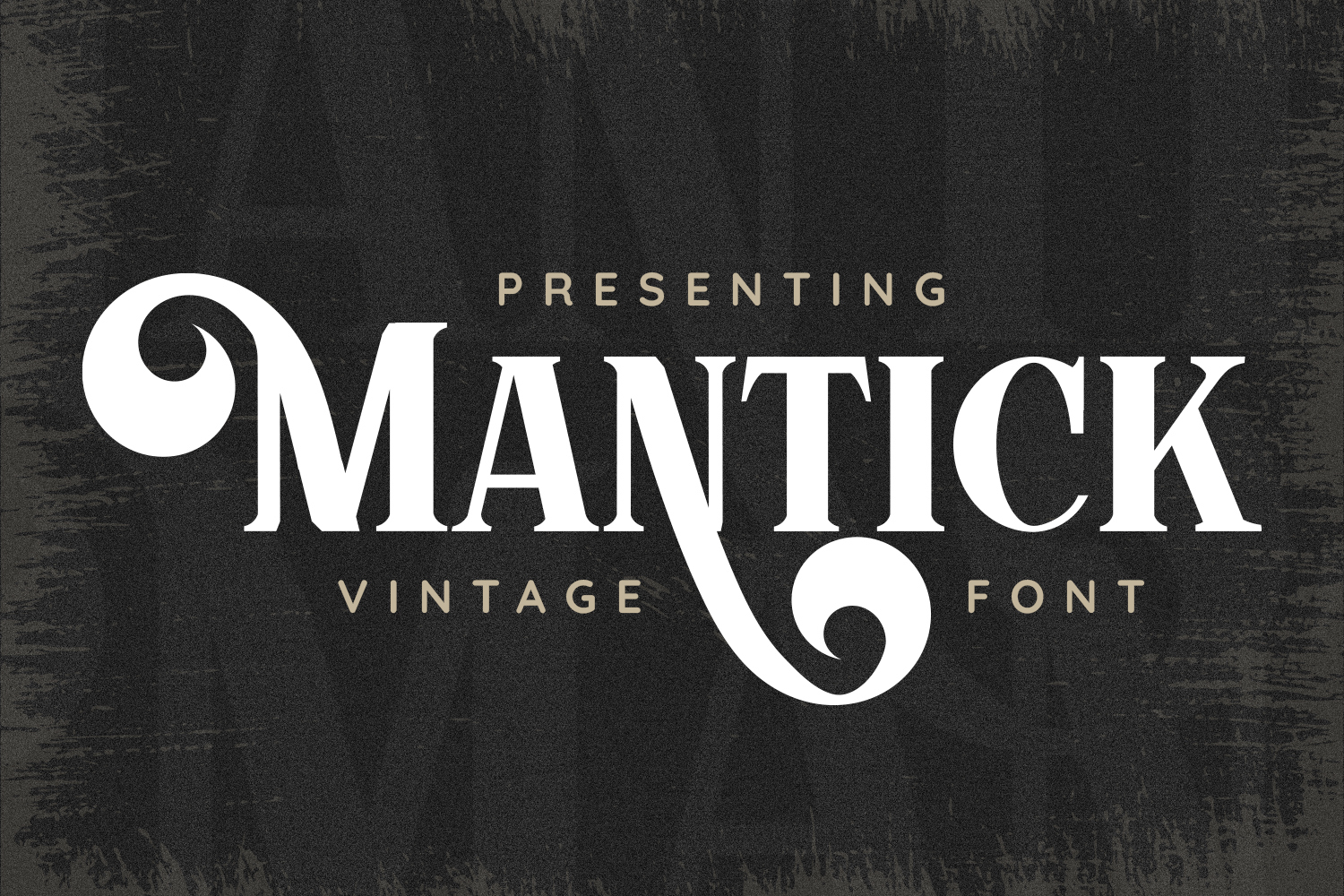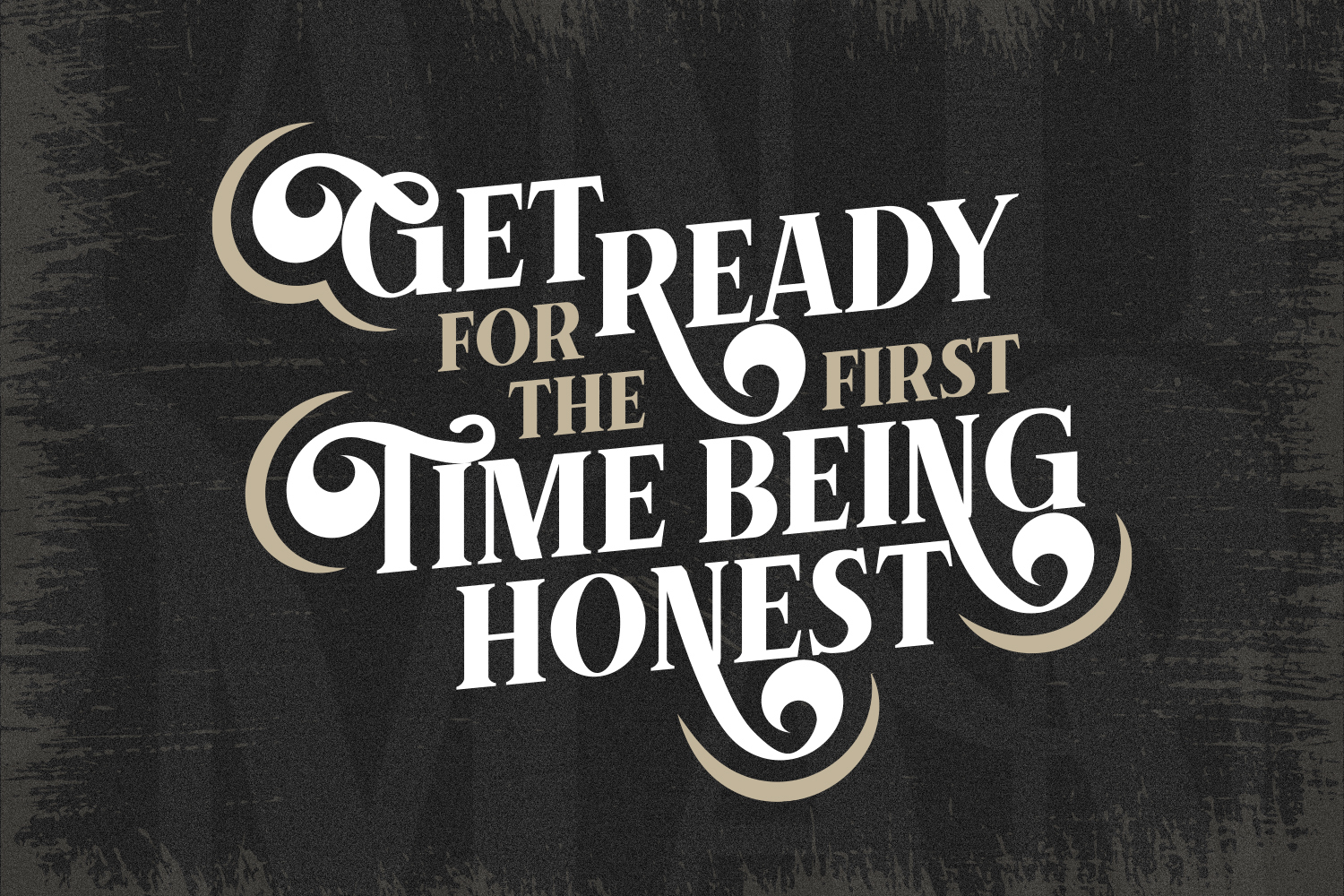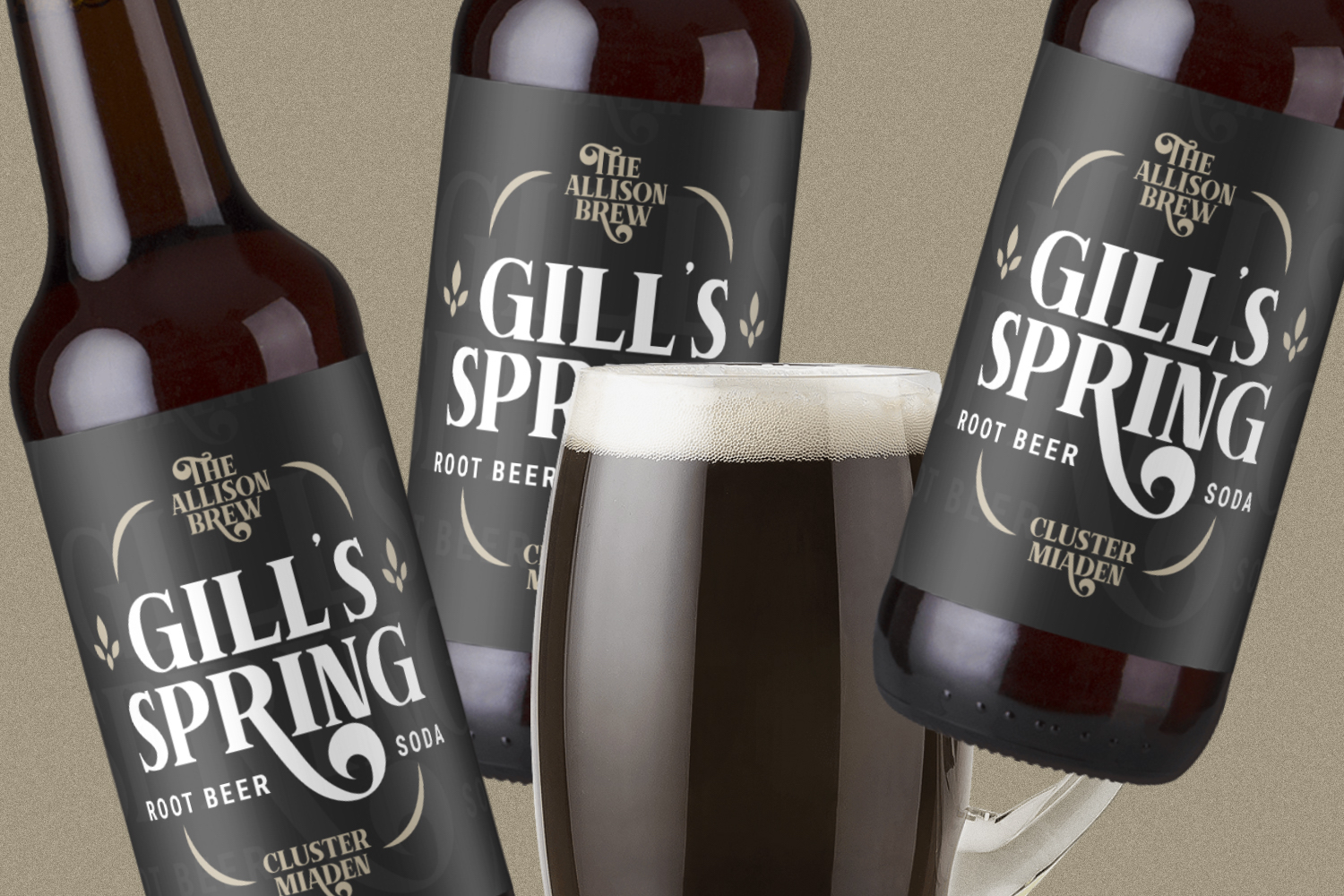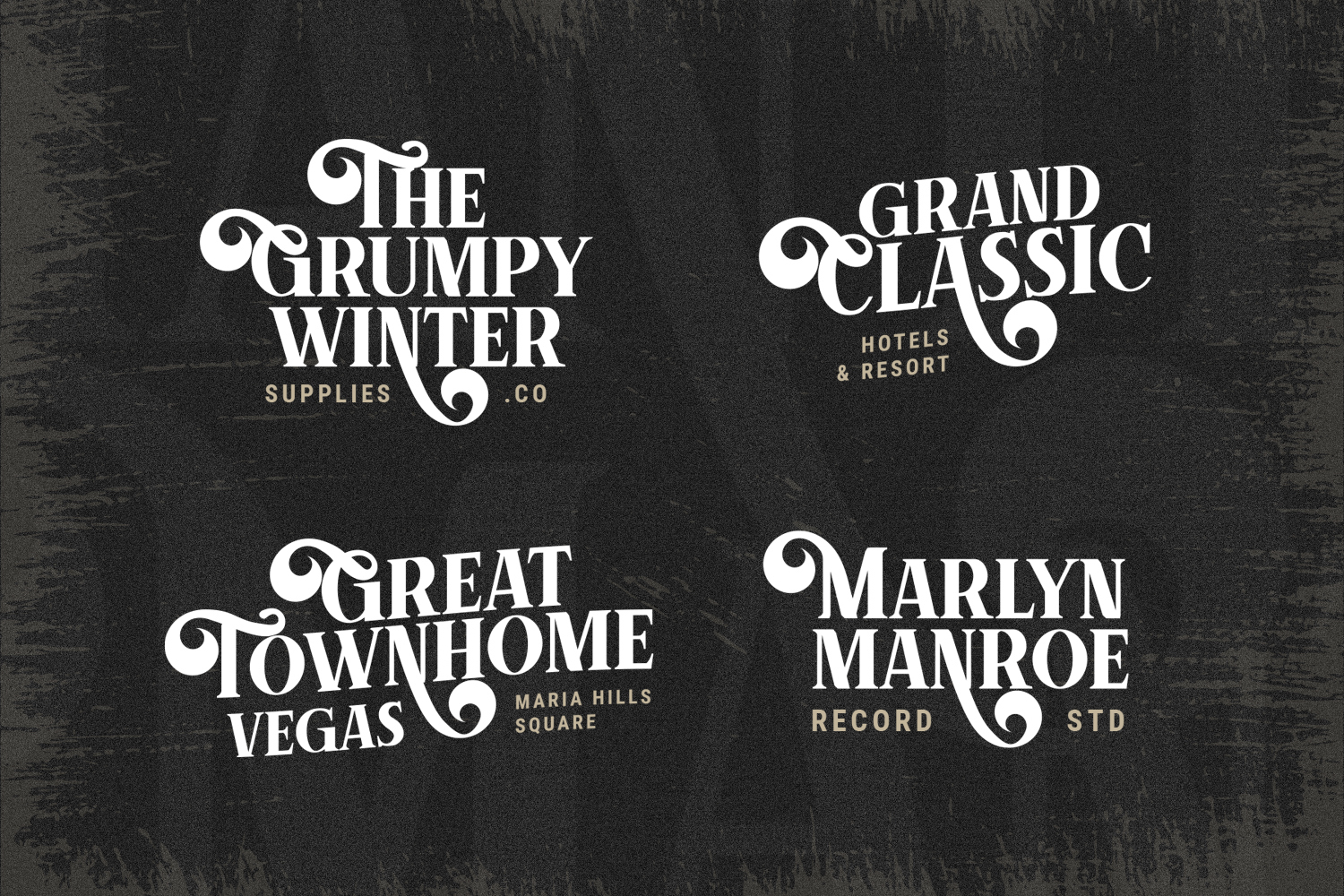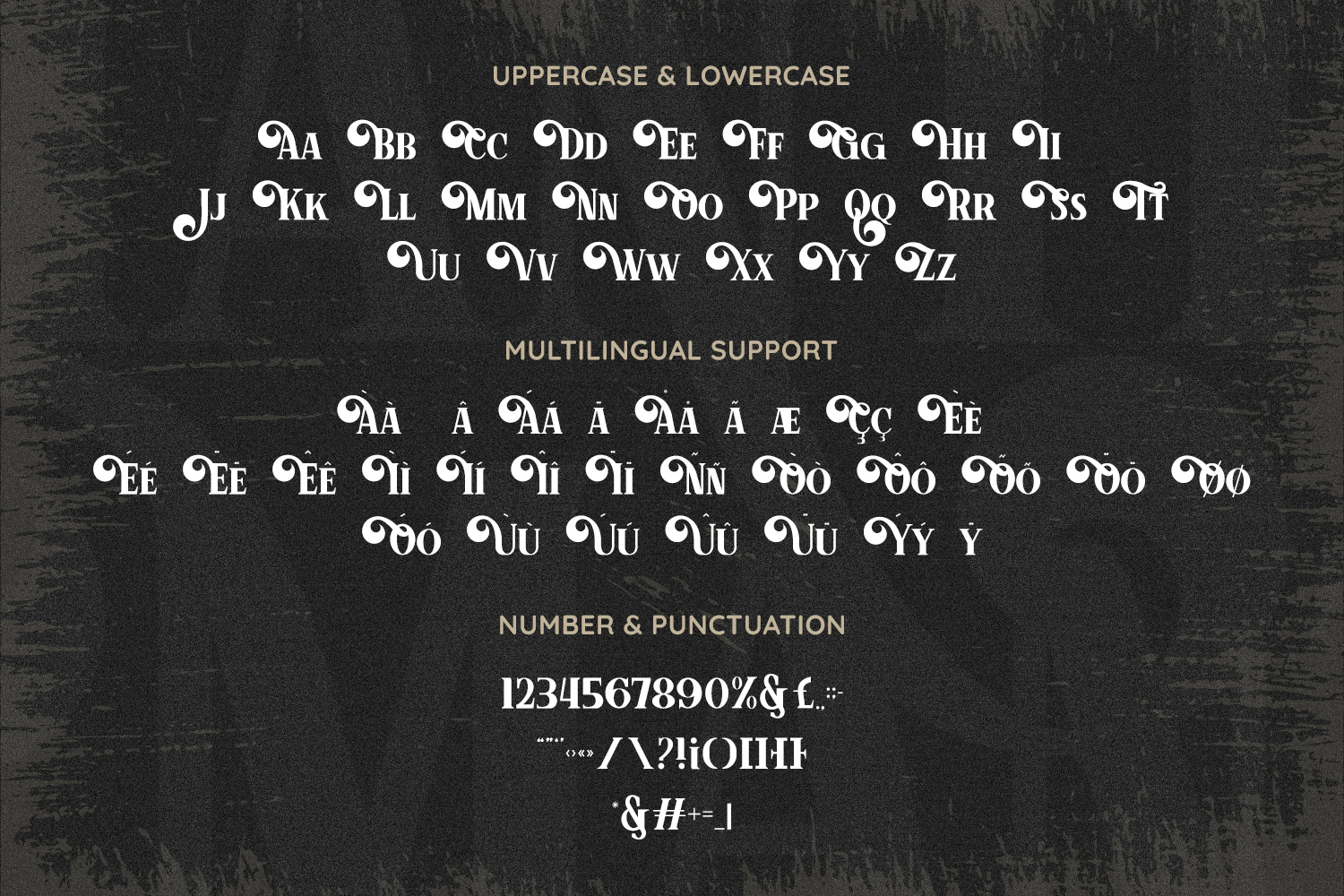
Mantick
Glyphs for Mantick
Mantick is a striking vintage display font that blends elegance and bold character with dramatic ornamental swashes. Inspired by classic sign painting and Victorian aesthetics, each letterform is carefully sculpted to bring a sense of sophistication and flair to your designs. Whether it’s for branding, packaging, or headline purposes, Mantick brings a strong visual presence that commands attention.
Ideal for logos, beverage labels, posters, or boutique signage, Mantick offers full uppercase and lowercase sets, multilingual support, and a wide range of punctuation. Its stylized terminals and flamboyant curves make it a perfect fit for vintage-inspired branding or decorative typography with a modern twist.